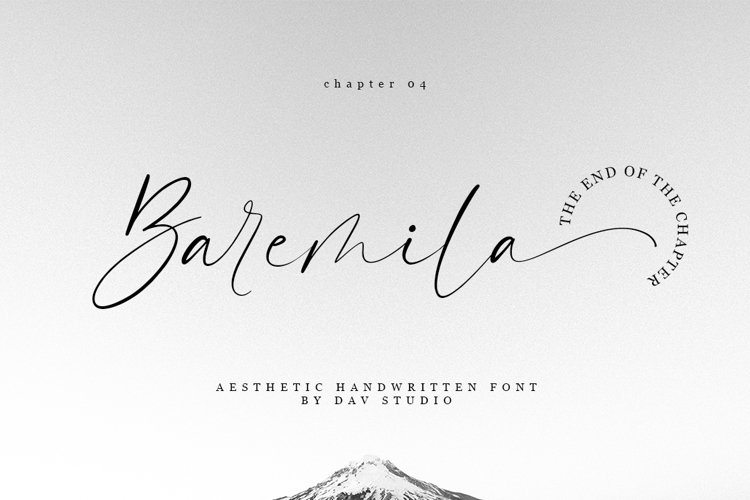
Hi introduce the newest font says it's called Baremila.
This is a quote font for four sets of fonts with one theme that I created, this font is wrapped in a soft, smooth, and lovely one. Featured with the ligature and swahes in each lowercase letter, it will give a classy impression to every design that you will create.